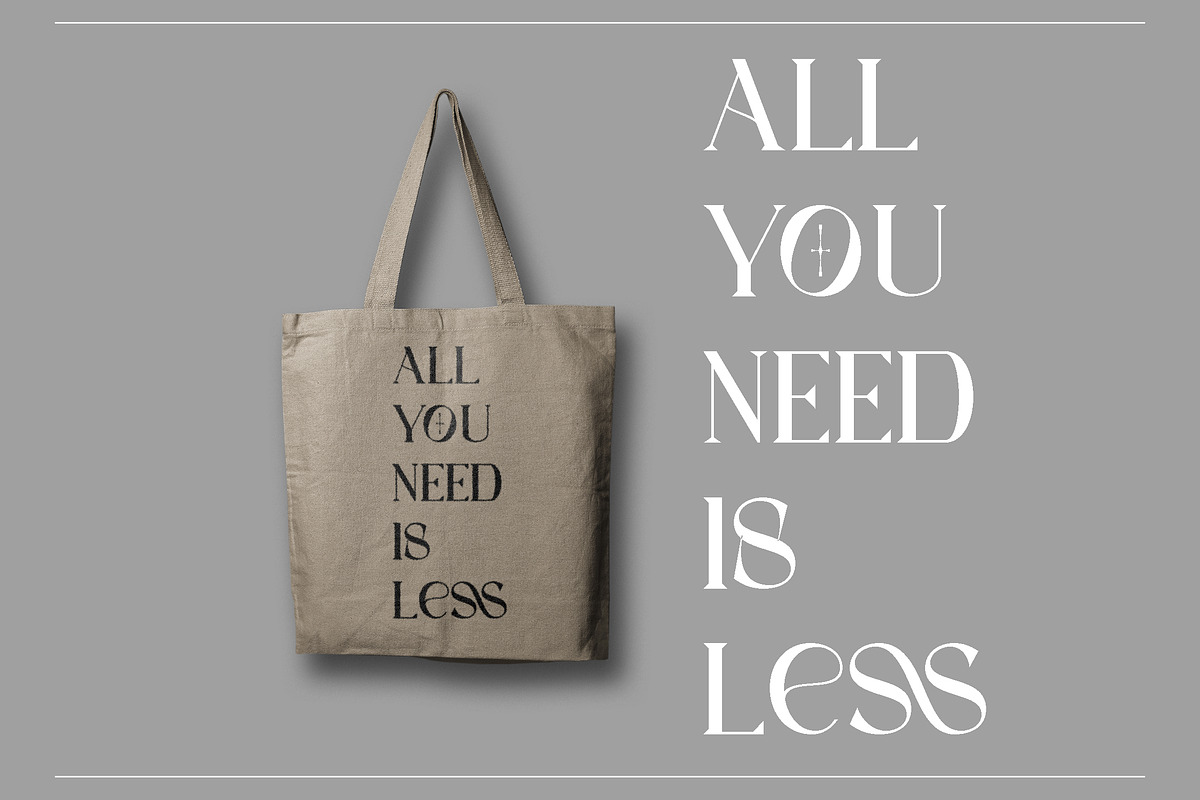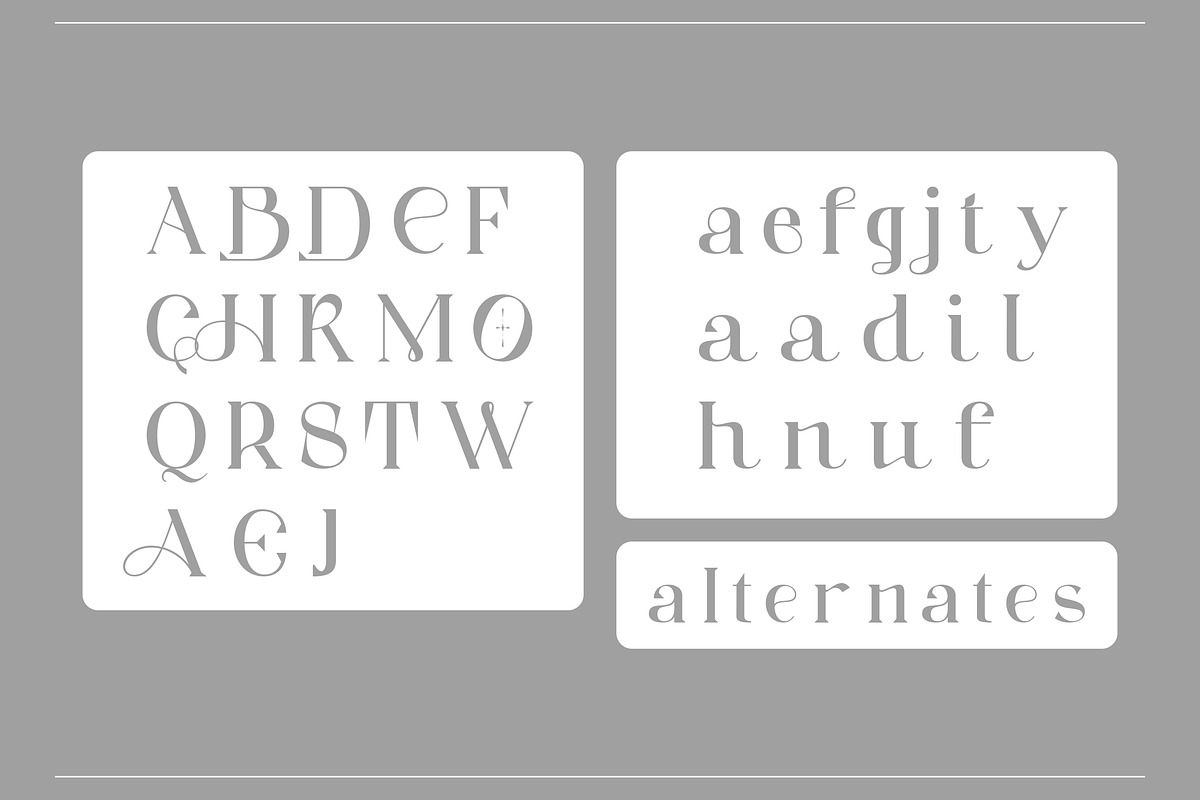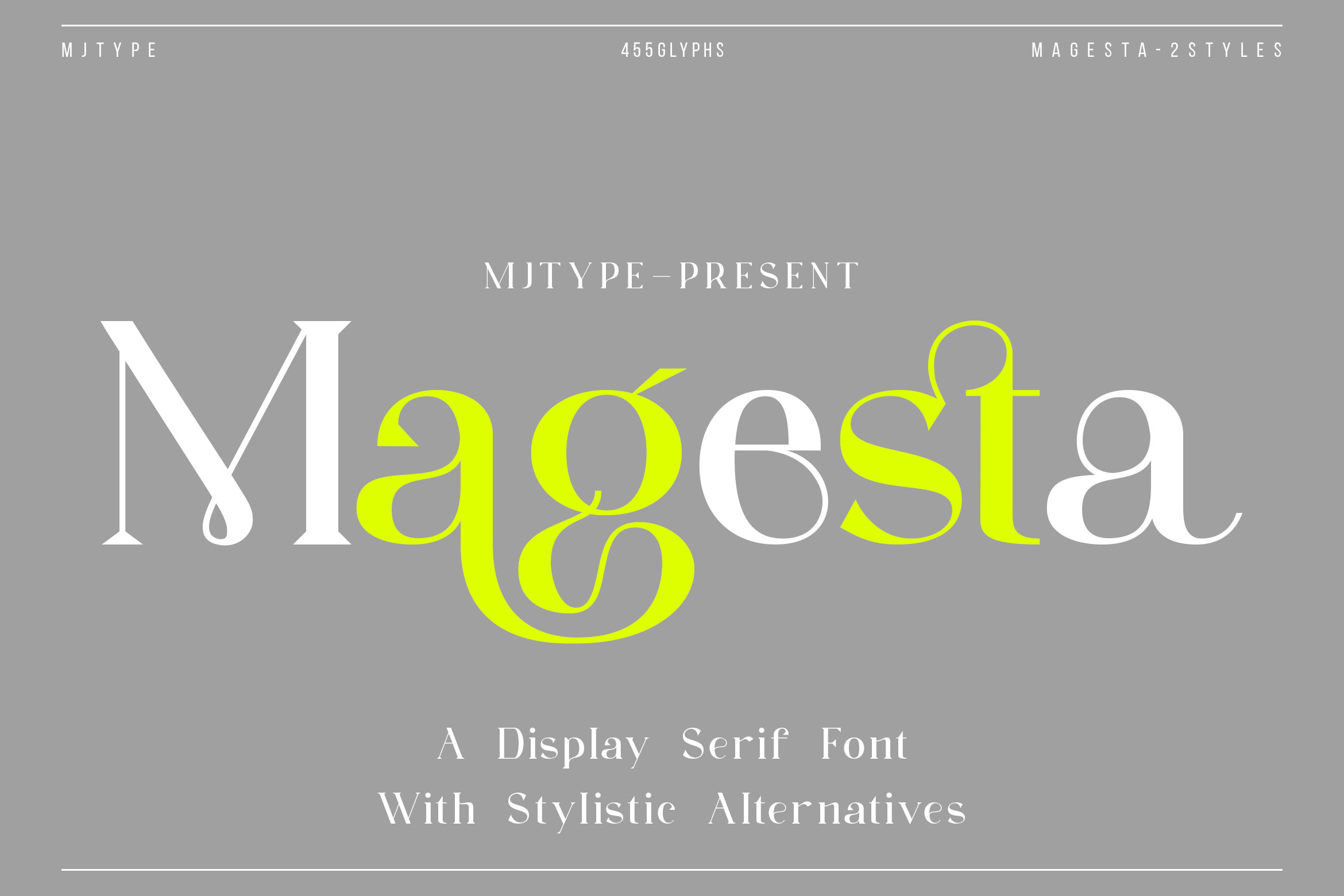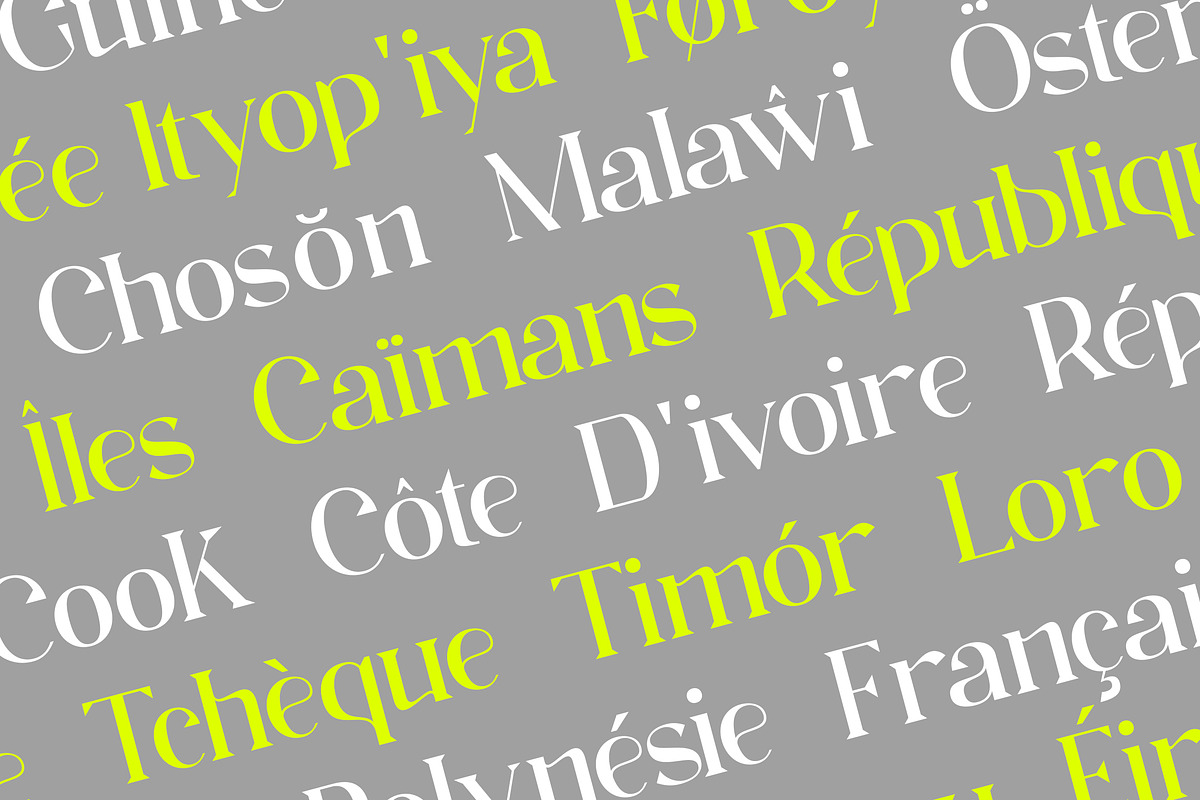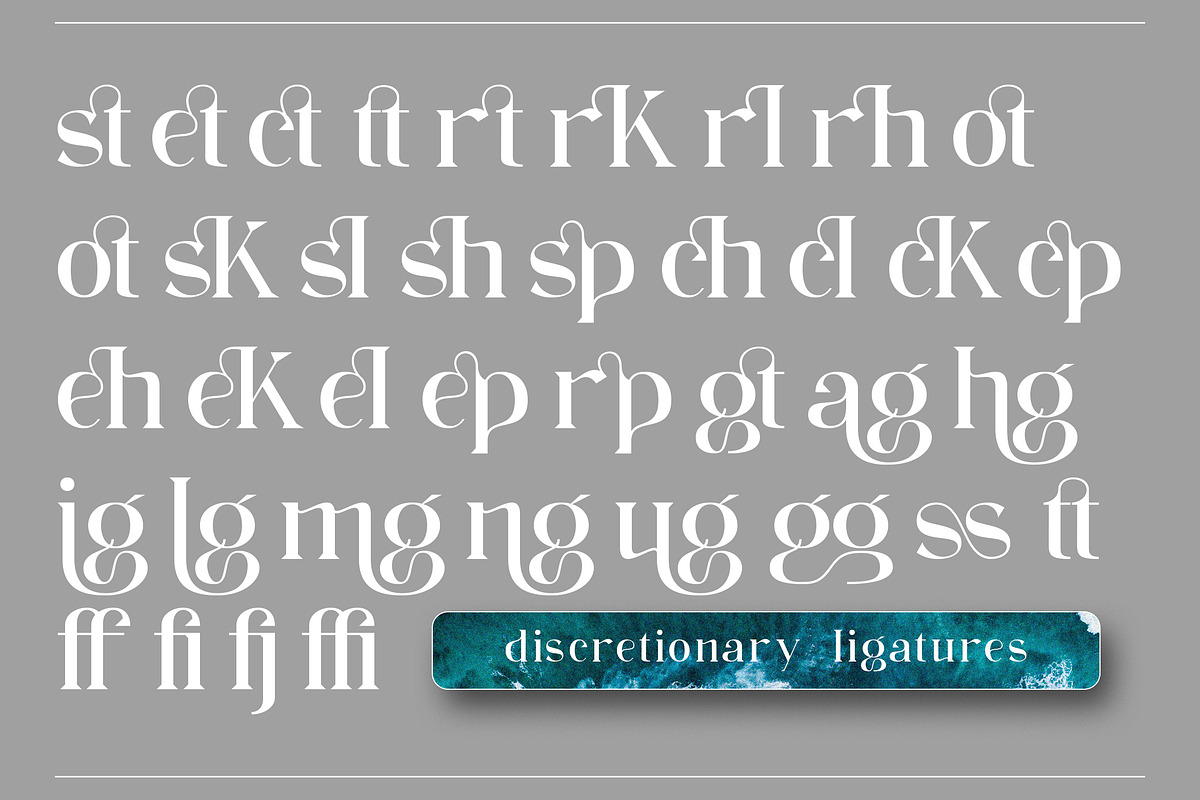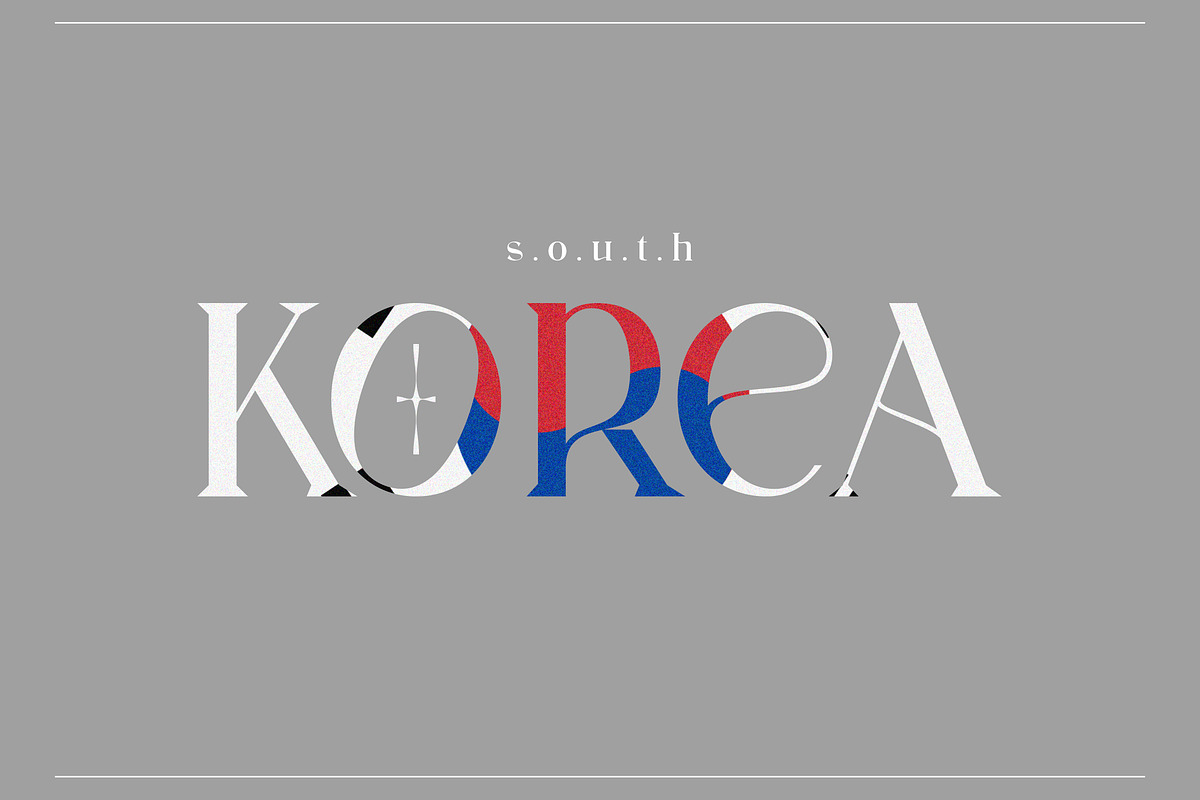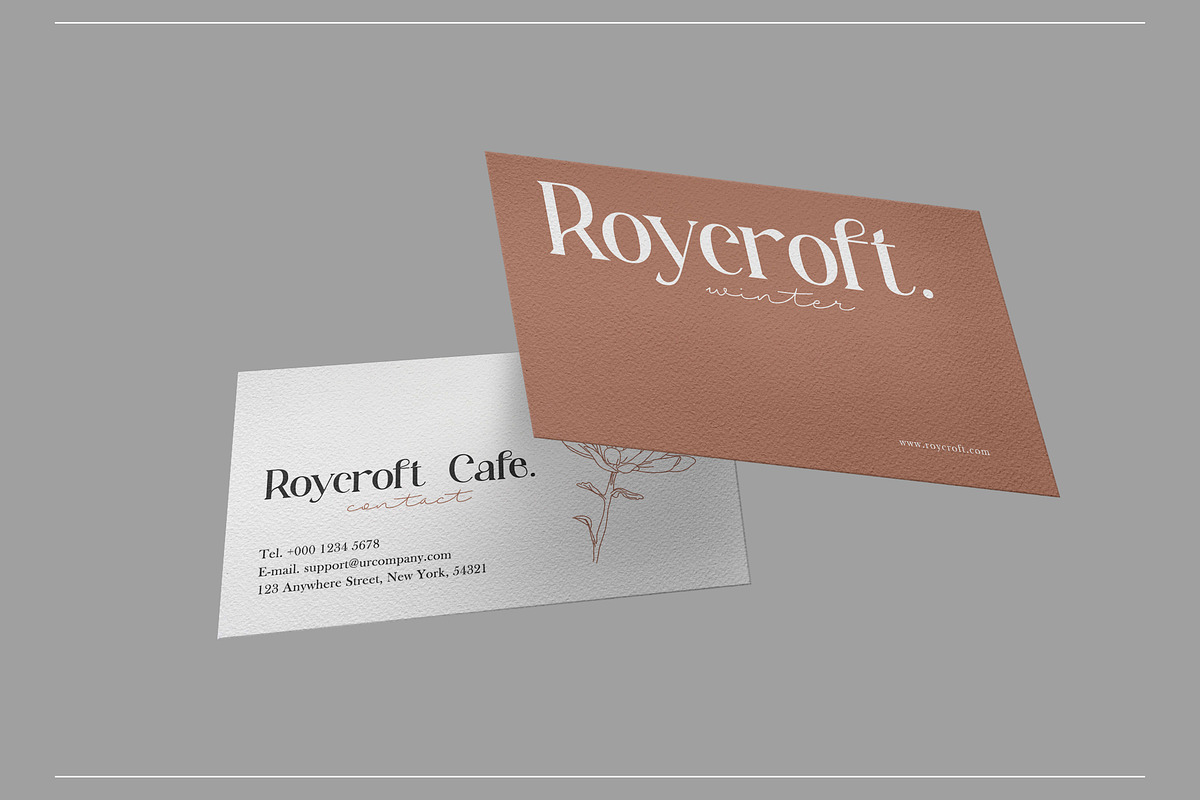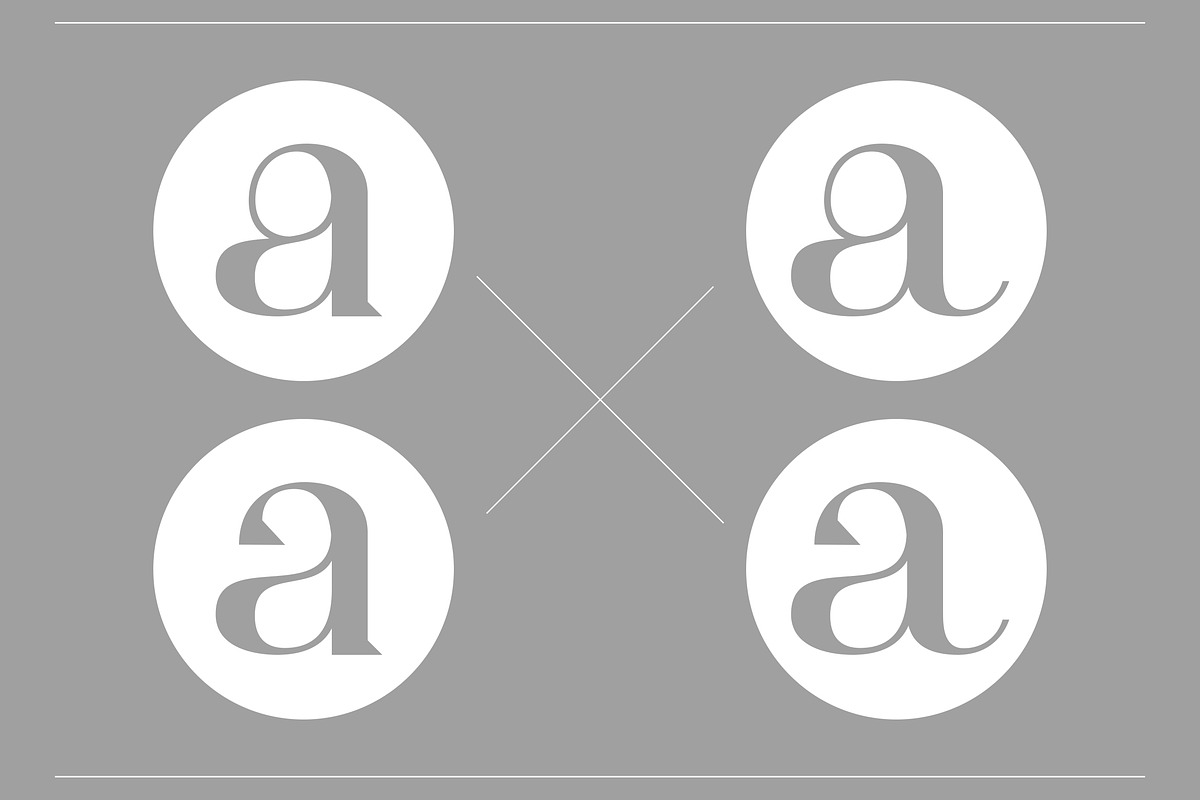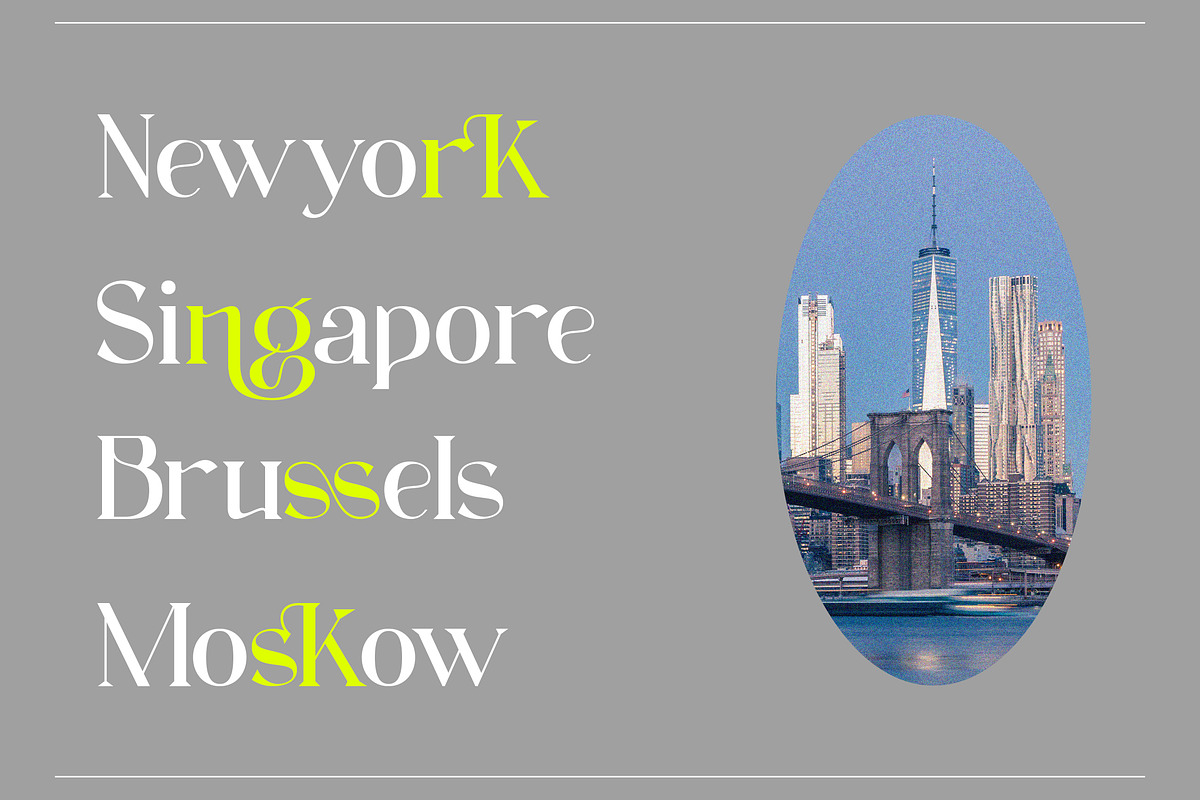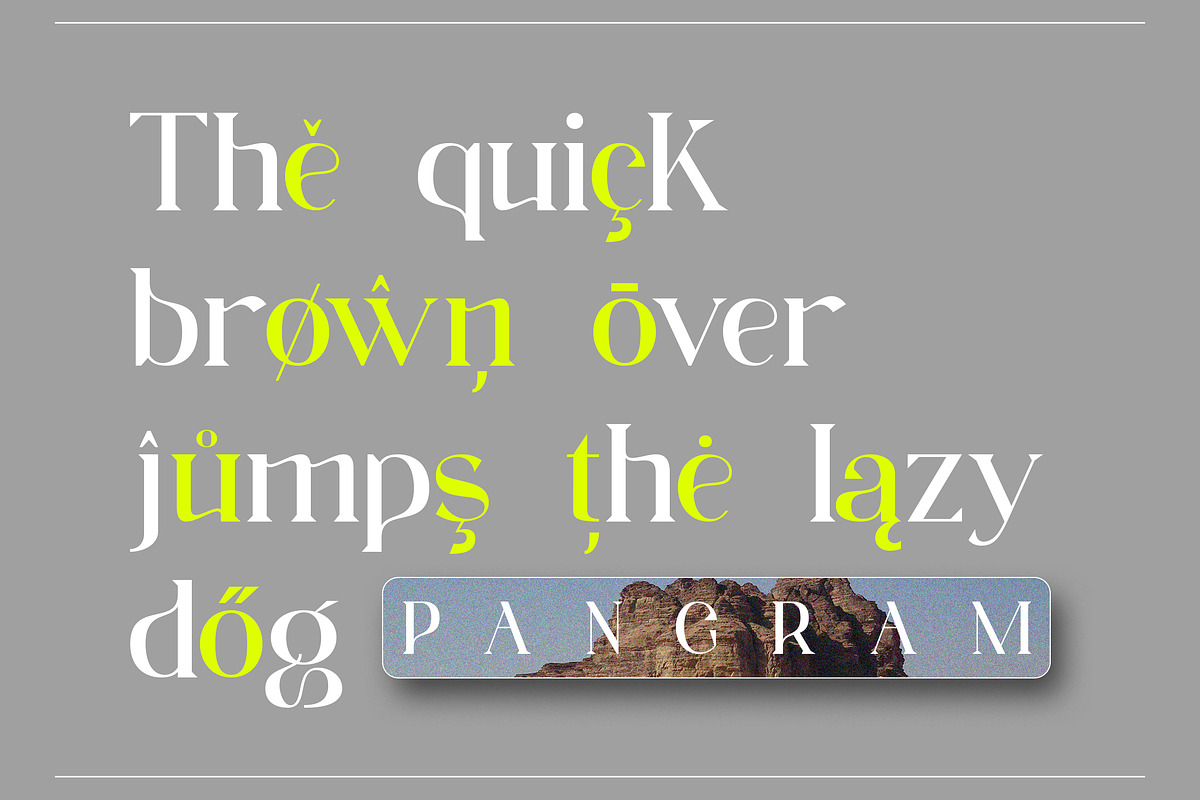
Magesta - Typeface
Magesta Typeface that supports multiple languages and offers unique ligatures for both uppercase and lowercase characters. Its combination of elegant lettering and multilingual support make it a great choice for creating sophisticated logos and adding style to your next design project. Use Magesta Typeface for headlines, logo designs, posters, t-shirts, and business cards to achieve a professional and unique look. This font is the perfect tool for creating designs that are both elegant and functional.